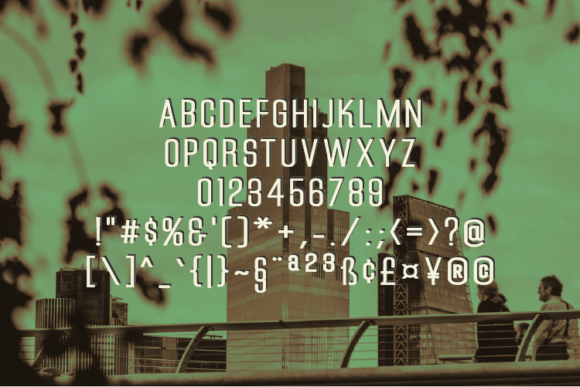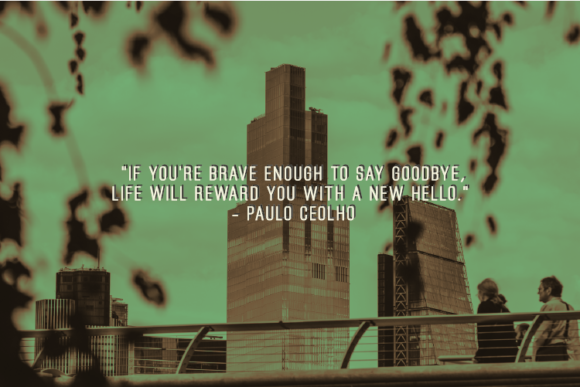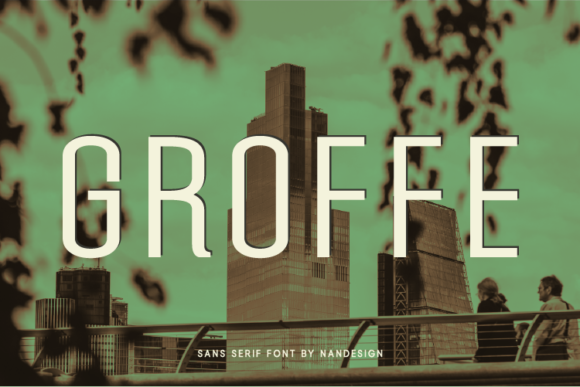
Discover the Power of Groffe Font: Elevate Your Designs with a Minimal and Neat Sans Serif Font
Are you tired of using the same old fonts in your designs? Do you want to add a touch of modernity and sophistication to your creative projects? Look no further than Groffe Font, a minimal and neat sans serif font that’s sure to make your designs stand out. In this article, we’ll explore the features and benefits of Groffe Font, and show you how to incorporate it into your design workflow.
What is Groffe Font?
Groffe Font is a sleek and contemporary sans serif font that’s perfect for designers and crafters looking for a clean and minimalist aesthetic. Its simple yet elegant design makes it ideal for use in a wide range of creative projects, from logos and branding to headings and body text.
Key Features of Groffe Font
- Minimalist design: Groffe Font features a clean and minimalist design that’s free from unnecessary embellishments, making it perfect for designers who want to keep their designs simple and elegant.
- Sans serif: The font’s sans serif design gives it a modern and sleek look that’s perfect for contemporary designs.
- Neat and legible: Groffe Font is highly legible, even at small sizes, making it perfect for use in body text and other applications where readability is key.
- Versatile: Groffe Font is versatile and can be used in a wide range of creative projects, from logos and branding to headings and body text.
Benefits of Using Groffe Font
So why should you choose Groffe Font for your designs? Here are just a few benefits of using this amazing font:
- Adds a touch of modernity: Groffe Font’s sleek and contemporary design adds a touch of modernity to any design, making it perfect for designers who want to create fresh and contemporary designs.
- Improves readability: The font’s clean and minimalist design makes it highly legible, even at small sizes, which improves readability and makes it easier for your audience to engage with your content.
- Enhances creativity: Groffe Font’s unique and elegant design inspires creativity and can help you to think outside the box and come up with innovative design solutions.
- Perfect for branding: Groffe Font’s clean and minimalist design makes it perfect for use in logos and branding, where a simple yet elegant design can make a big impact.
How to Use Groffe Font in Your Designs
Using Groffe Font in your designs is easy. Here are a few tips to get you started:
- Pair it with other fonts: Groffe Font pairs well with other sans serif fonts, as well as serif fonts, making it easy to create unique and interesting font combinations.
- Use it for headings and body text: Groffe Font is perfect for use in headings and body text, where its clean and minimalist design can improve readability and add a touch of modernity.
- Experiment with different sizes: Groffe Font is highly legible, even at small sizes, making it perfect for use in a wide range of design applications.
Groffe Font is a powerful and versatile font that’s perfect for designers and crafters looking for a minimal and neat sans serif font. Its clean and minimalist design makes it ideal for use in a wide range of creative projects, from logos and branding to headings and body text. With its modern and sleek look, Groffe Font is sure to make your designs stand out. So why not give it a try and see the difference it can make?
Whether you’re a professional designer or a crafter looking for a unique and elegant font, Groffe Font is a great choice. Its benefits, including improved readability, enhanced creativity, and a touch of modernity, make it a valuable addition to any design workflow. So add Groffe Font to your creative toolkit today and start creating stunning designs that will leave a lasting impression!